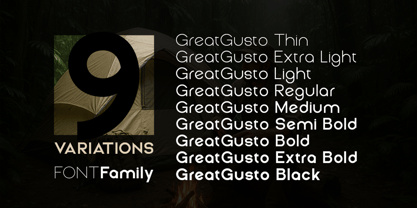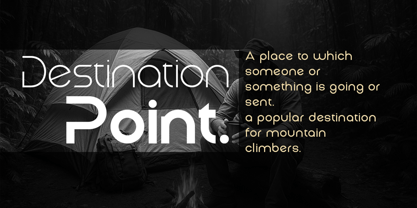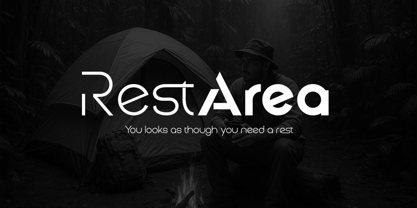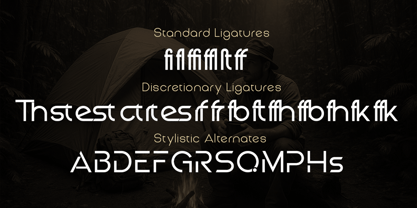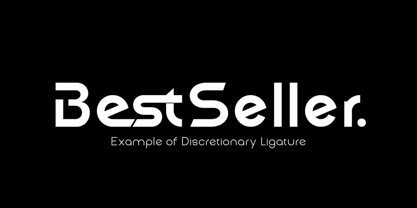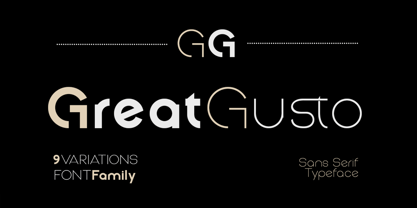
Great Gusto
by Groen Studio
The Great Gusto Font Family was designed by Roiyani Teungku and published by Groen Studio. Great Gusto contains 9 styles and family package options. More about this family
Great Gusto is a New Formal and Elegant Typeface. Created in a very bold style.
Great Gusto is a variation of the normal style font and has a distinctive feature in the corners of the glyph characters look sharp. This font comes in 9 variations, This font looks amazing in logos, magazines, and films. This font will be perfect for branding, headlines, captions, paragraphs, and posters. Various weights allow you to experiment with various applications. This font is made to make an impression without sacrificing its beauty and readability.
Great Gusto is Sans-serif lettering and typefaces are popular due to their clarity and legibility at distance in advertising and display use, both when printed very large or small.
Designers: Roiyani Teungku
Foundry: Groen Studio